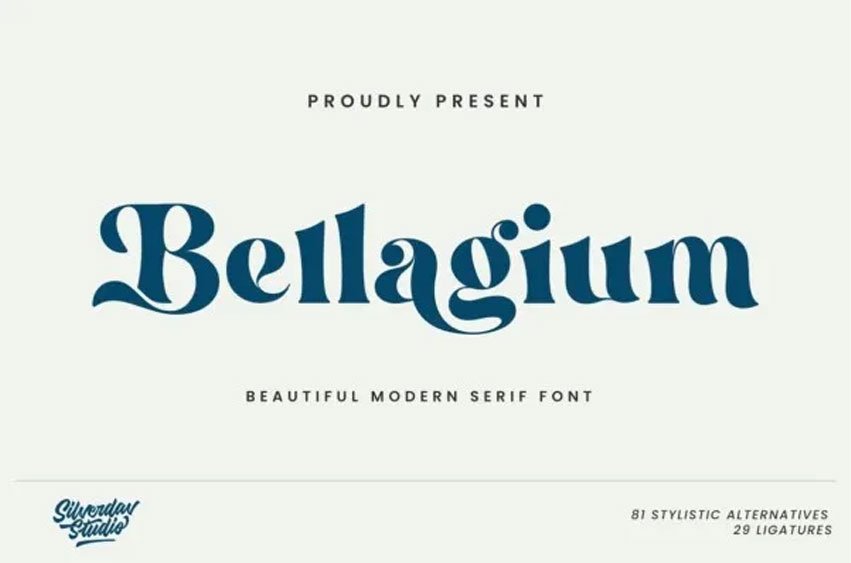
Bellagium Font is a truly unique serif font, with a more modern style and unique curves that add a special and glamorous feel to your designs.
There are lots of alternatives that you can use to make your designs more beautiful and charming, plus ligatures, of course, your designs will be more charming.